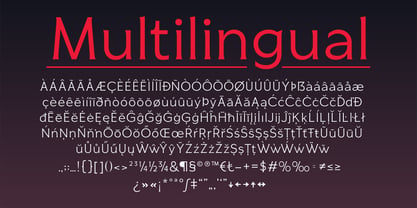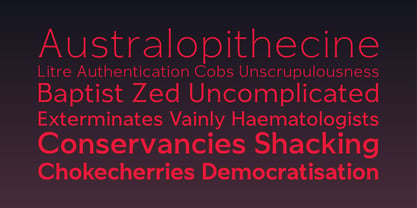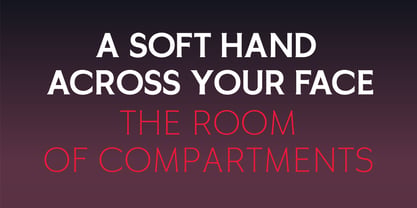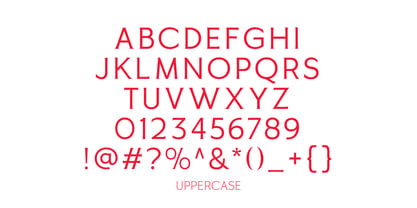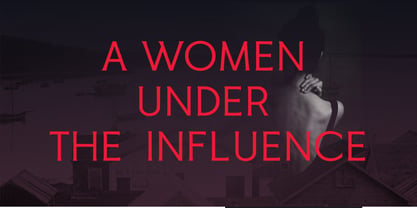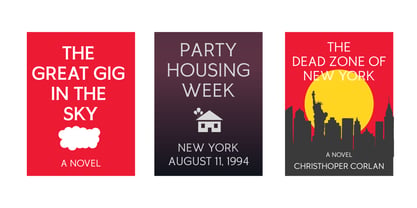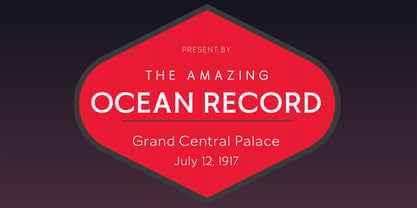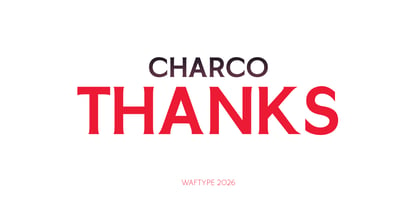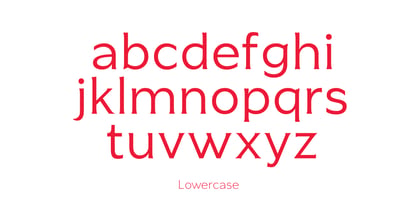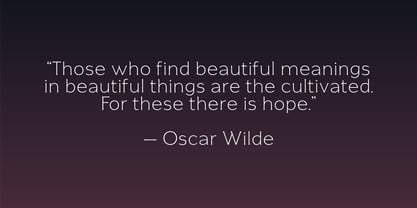
Charco
by Waftype
The Charco Font Family was designed by Wafi Zimamul and published by Waftype. Charco contains 6 styles and family package options. More about this family
Charco Flare Serif is a contemporary serif typeface with distinctive flared details, combining classic serif character with a clean and modern feel. Its elegant proportions and expressive forms make it versatile for both refined branding and bold editorial designs.
The family includes 6 weights, ranging from Light to Black, giving you flexibility from delicate typography to strong, attention-grabbing headlines. Charco also comes as a Variable Font, allowing smooth control over weight and creating more precise typographic adjustments.